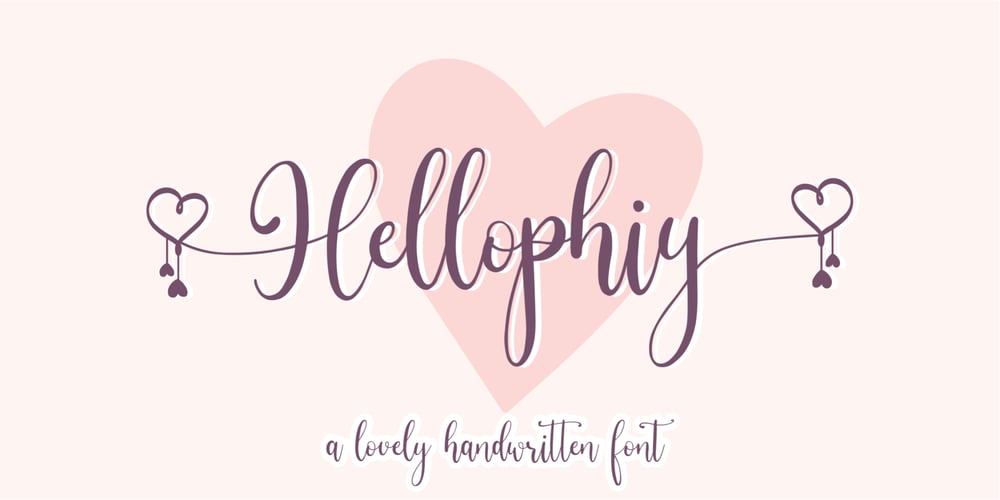
Hellophiy Font Family was designed by Suhery Anto, Odies Dwi Yudhistira and published by Qwrtype Foundry. Hellophiy contains 1 styles and family package options. Hellophiy is a Lovely Handwritten FontHellophiy perfect for product packaging, branding project, magazine, social media, wedding, or just used to express words above the background.Hellophiy also come with Multi-Lingual Support.Enjoy the font, feel free to comment or feedback, send me PM or email.Thank you!